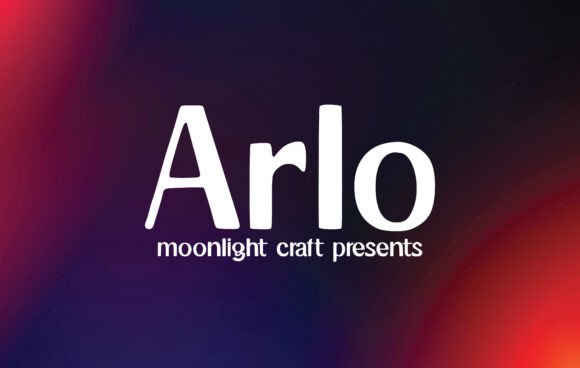
The Arlo Font: A Creative Game-Changer for Designers and Crafters
Have you ever been in the middle of a design project, and suddenly, you’re stuck on finding the perfect font? I recall a particularly frustrating experience when a client asked for a logo that was both modern and elegant. I scoured the internet for hours, but nothing seemed quite right. That’s when I stumbled upon the Arlo font, and it completely transformed my design.
Arlo is a lovely and beautiful handwritten font that has the potential to take your creative ideas to the highest level. It’s the best choice for creating eye-catching logos, branding, and quotes. In this article, I’ll share my honest review of the Arlo font, provide a practical guide on how to use it, and explore similar fonts that you might enjoy.
An Honest Review of Arlo Font
What I Love About Arlo Font ✨
- 💫 Elegant and modern handwritten style that’s perfect for logos and branding
- 🎨 Versatile and works well with a variety of design styles
- 🔍 Excellent for creating quotes, posters, and social media graphics
- ⚠️ Limited availability of stylistic alternates, which might limit its use in certain designs
- 🤔 Not ideal for body text or long paragraphs, as it’s best suited for headlines and titles
The Designer Inspiration Behind Arlo Font
The Arlo font was designed with the intention of creating a beautiful, modern handwritten font that’s both elegant and legible. The designer aimed to create a font that would be versatile and work well with a variety of design styles. While the designer’s backstory is not well-documented, it’s clear that they were successful in creating a font that’s both stylish and functional.
| What type of projects is Arlo font best suited for? | Arlo font is best suited for projects that require a modern and elegant handwritten style, such as logos, branding, quotes, and social media graphics. |
| Is Arlo font available in different weights or styles? | Arlo font is available in a single weight, but it does offer some stylistic alternates and ligatures to add visual interest to your design. |